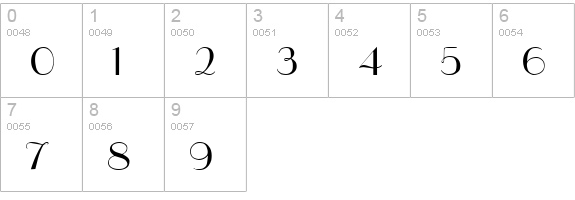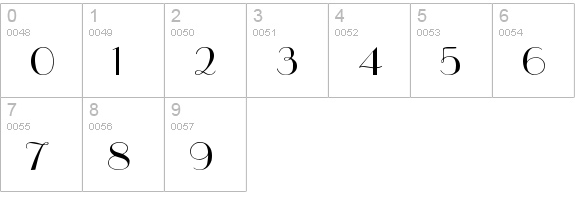
Upper-EastSide Regular is the standard, neutral variant in the Upper typeface family \xE2\x80\x94 well suited to general body text, paragraphs, and standard typographic work.
The Upper-EastSide Regular font is a contemporary and elegant typeface that exudes sophistication and class. With its clean lines and subtle curves, this font is perfect for adding a touch of refinement to any design project. Whether you're creating branding materials, invitations, or simply looking to elevate the aesthetic of your website, this font will effortlessly bring a sense of style and polish. What sets Upper-EastSide Regular apart is its versatility. It is equally suited for both headline and body text, making it a versatile choice for a wide range of applications. The carefully crafted letterforms ensure legibility at any size, ensuring that your message is easily readable and impactful. But what makes Upper-EastSide Regular truly special is its accessibility. We believe that great design should be available to all, which is why we are offering this font for free. Yes, you heard right - absolutely free. You can download Upper-EastSide Regular at FontsMarket.com, without having to spend a dime. So why wait? Give your designs the touch of elegance they deserve with Upper-EastSide Regular. Download it now, and let your creativity soar.